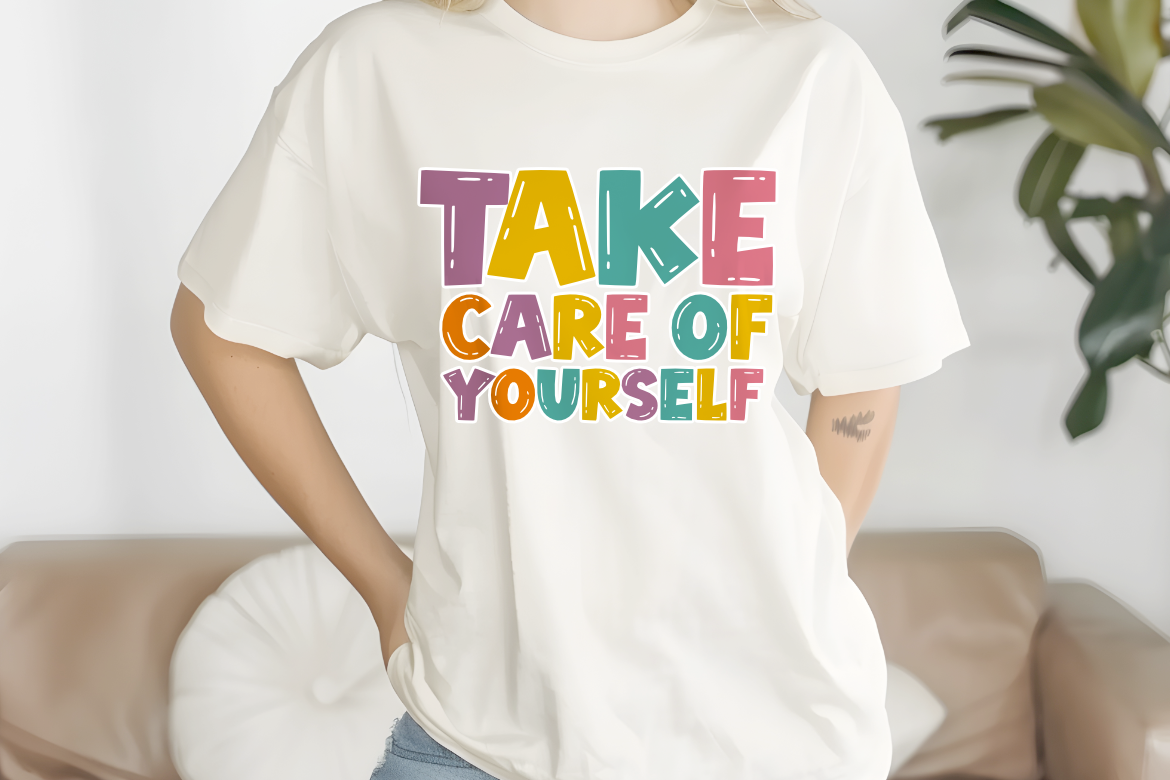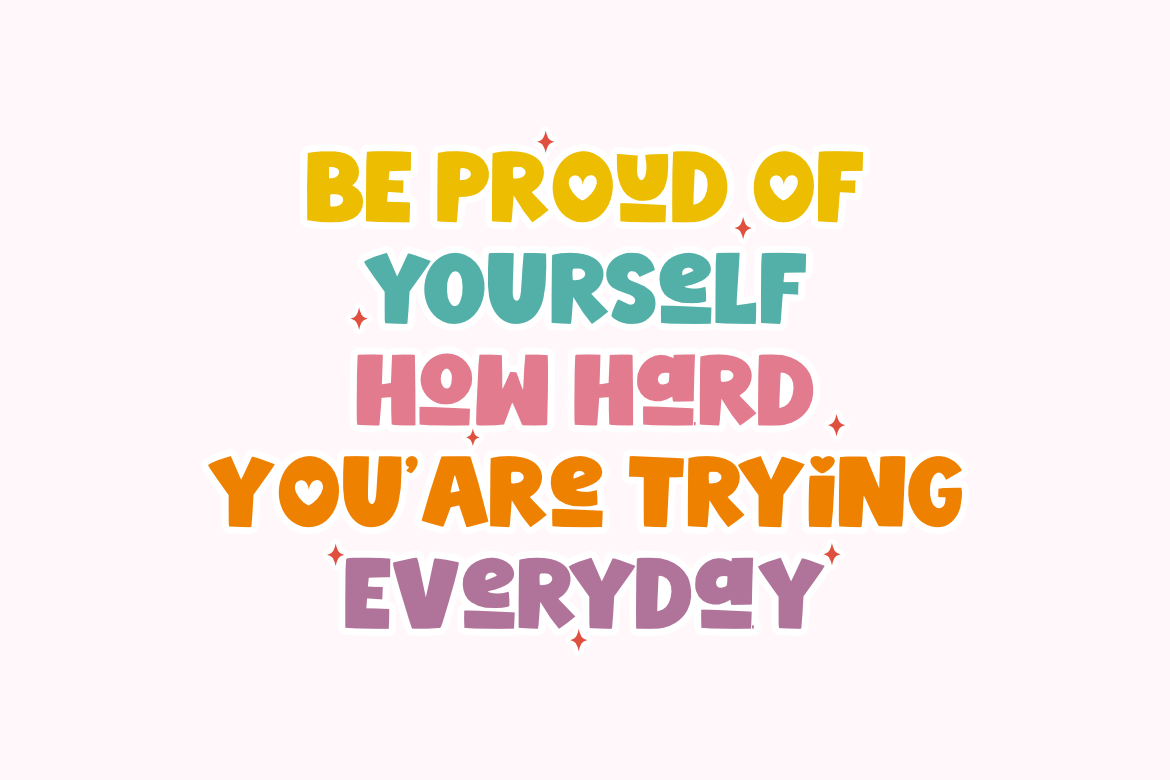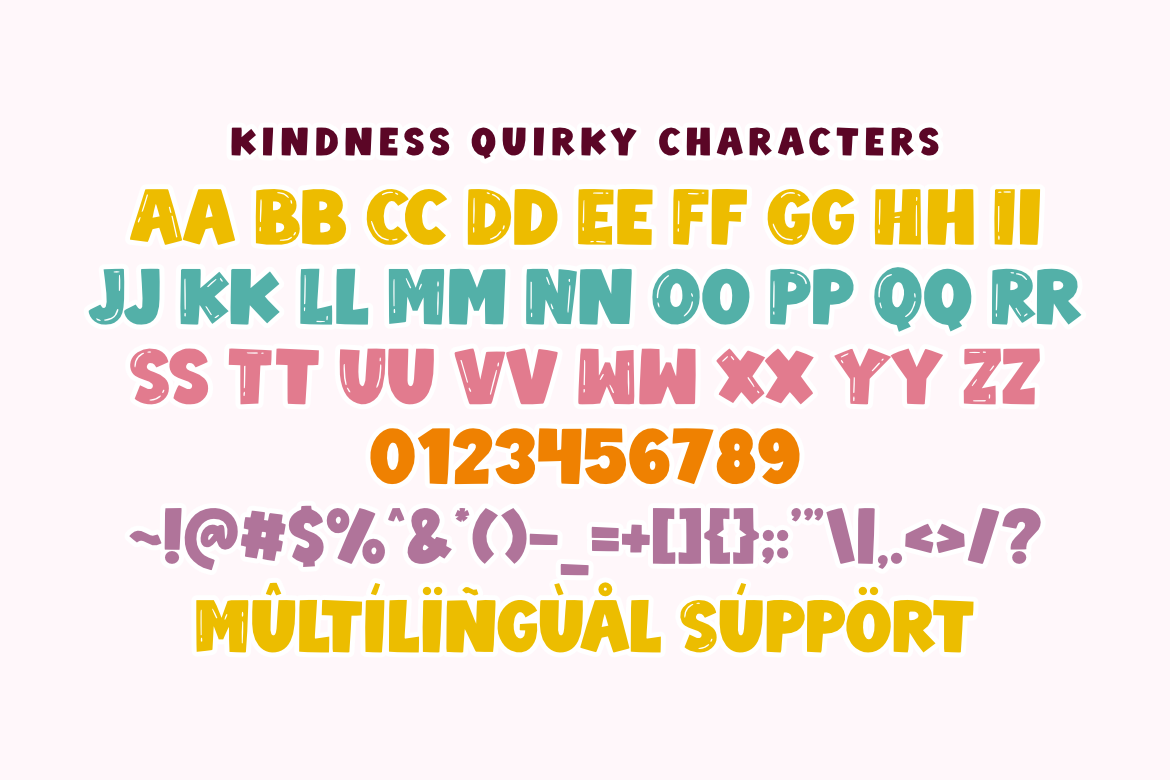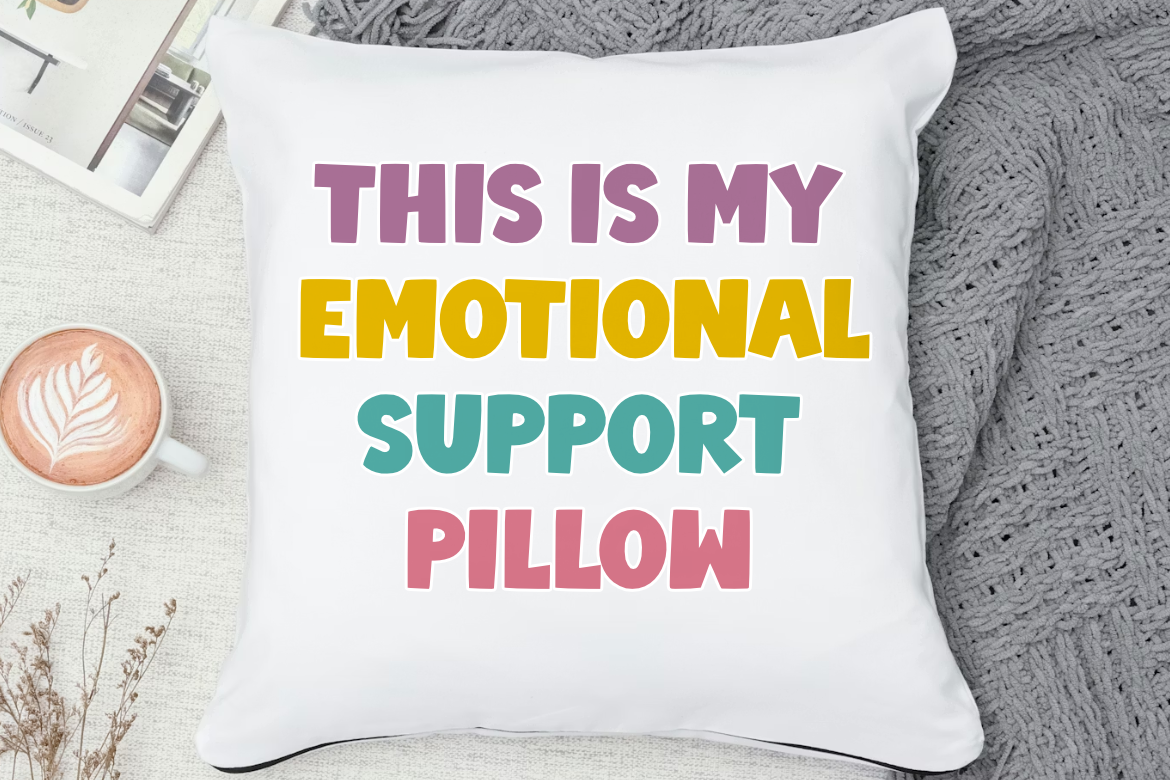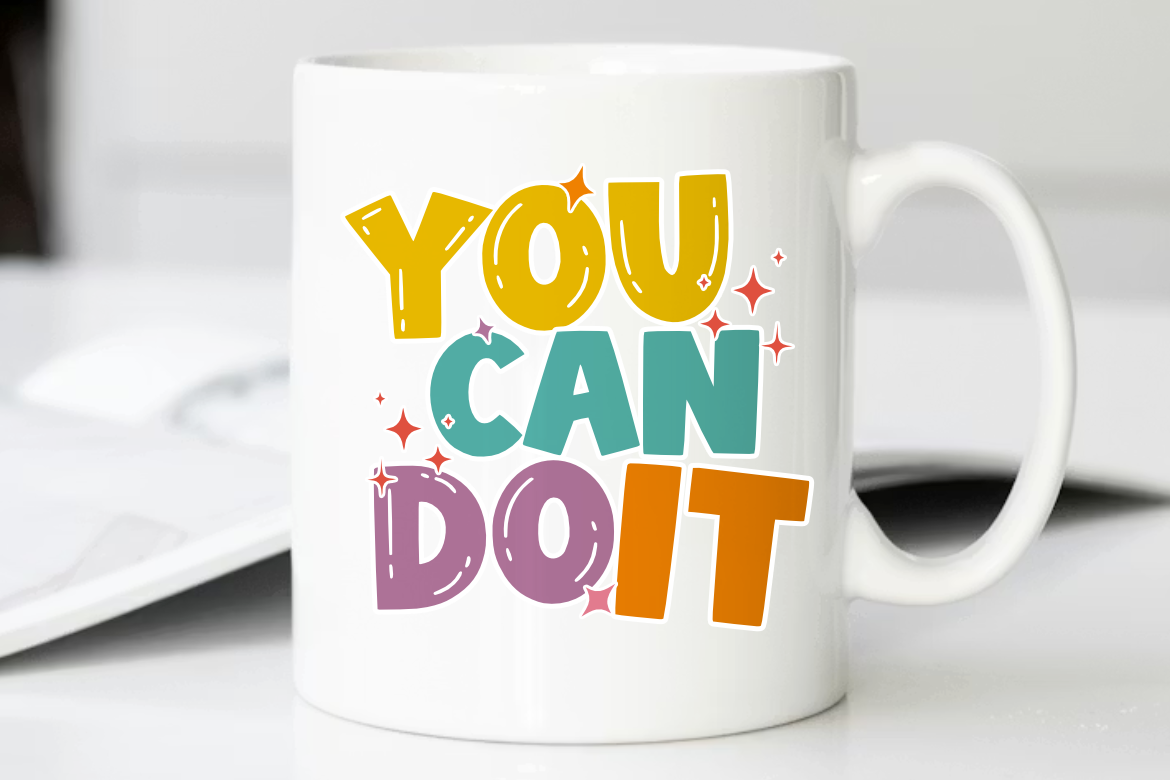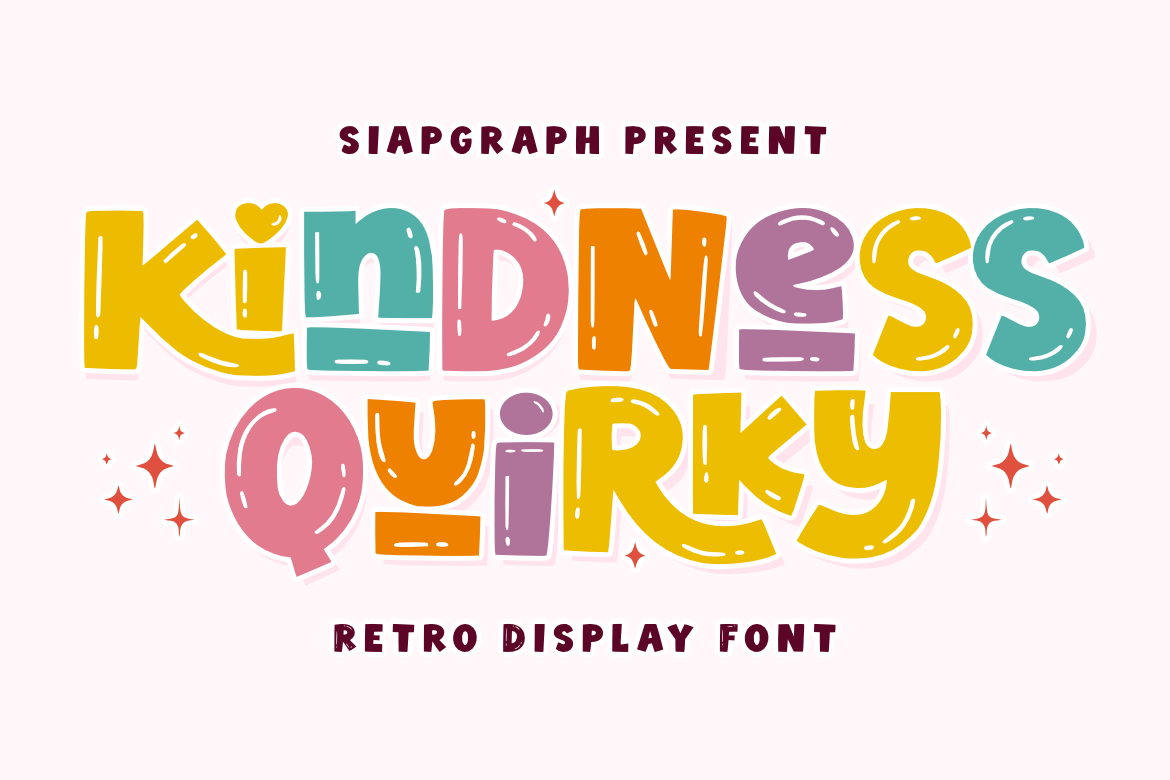
Kindness Quirky - Retro Quirky Font for Cricut and Sublimation
Playful Retro Quirky Display Font for Cricut and Sublimation
Kindness quirky is a playful retro display font inspired by the joyful charm of paper cutout art and energetic hand-drawn doodles. This typeface features a unique mix of mismatched character shapes and bold strokes that bring an authentic, handcrafted feel to your designs. Its clean and thick outlines are specifically optimized for the crafting community, ensuring a smooth and easy weeding experience for all your vinyl and digital cutting projects.
Perfect for: creating high-impact SVG cut files, custom children's apparel, vibrant vinyl stickers, adorable nursery wall decor, teacher classroom materials, personalized gifts, and fun branding projects. Whether you are stocking a Print on Demand (POD) shop or working on a DIY home craft, this font provides the readability and personality to make your products stand out.
Great for holiday themes like Back to School, Children's Day, Birthdays, and World Kindness Day, adding a friendly, inclusive, and optimistic spirit to every festive design!